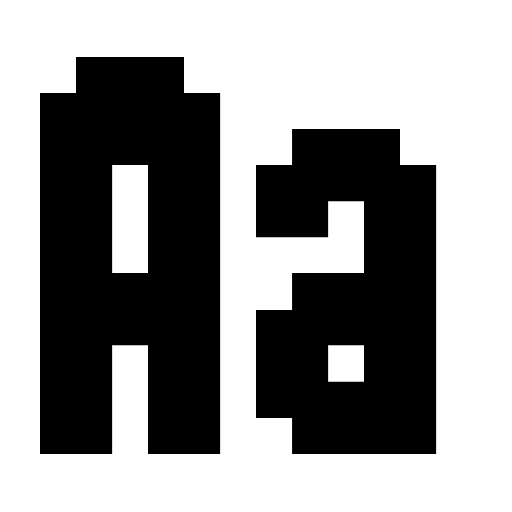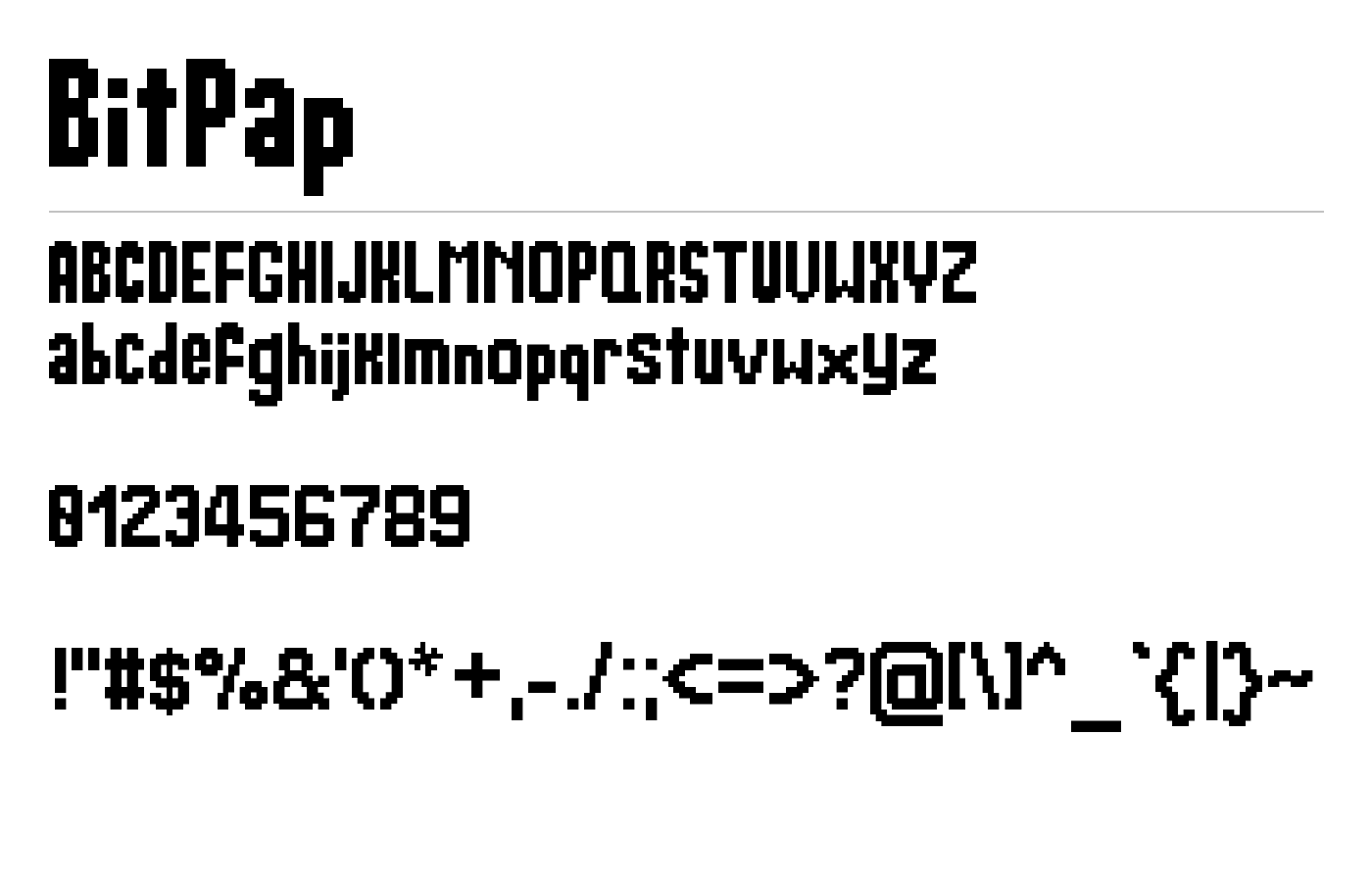
BitPap is a bold, pixelated sans serif font that captures a retro, digital vibe reminiscent of classic video games and early computer screens. Its blocky, geometric letterforms with consistent stroke weight and a high x-height make it highly legible for headings, logos, and digital-themed designs, bringing a playful, nostalgic energy. This font works best in contexts where a tech-inspired, vintage gaming style is desired, such as posters, websites, and branding for creative or geek culture projects.
BitPap Font
About BitPap Font